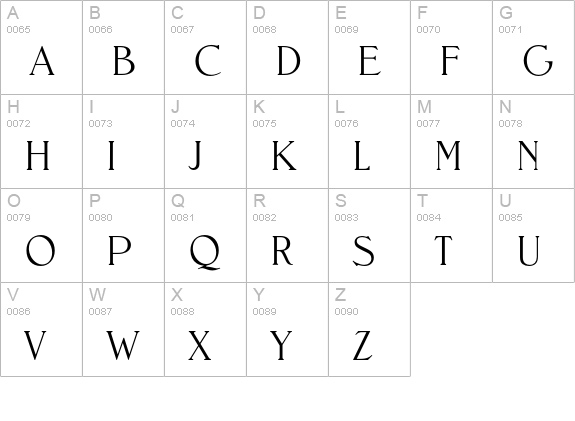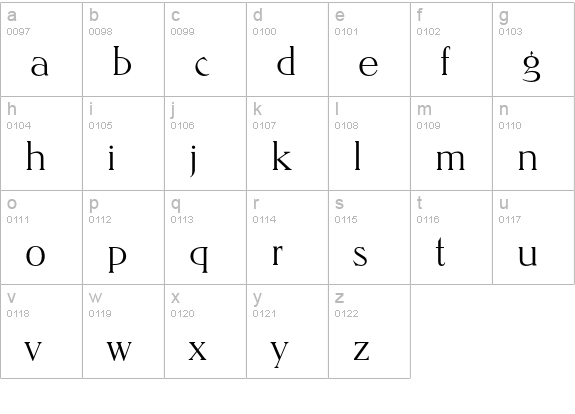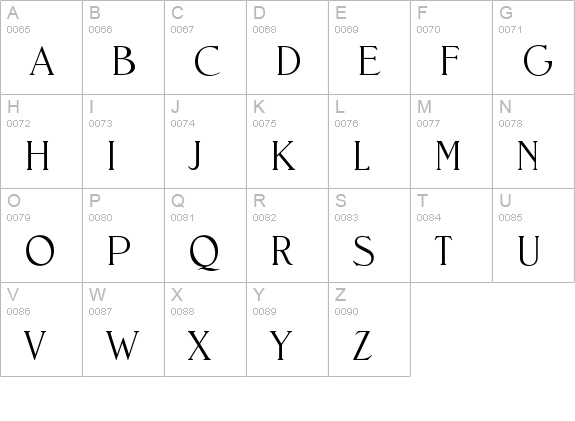
Nevada-Xlight font is a sleek and modern typeface designed with elegance and sophistication in mind. With its clean lines and minimalist aesthetic, this font is perfect for projects that require a touch of contemporary style. The Nevada-Xlight font exudes a sense of luxury and professionalism, making it ideal for a wide range of design applications. The best part? Nevada-Xlight font is completely free to download at FontsMarket.com. This means you can easily add this stylish font to your collection without breaking the bank. Whether you're working on a branding project, creating marketing materials, or designing a website, Nevada-Xlight font will elevate your work to the next level with its refined and polished look. Don't miss out on the opportunity to enhance your designs with the Nevada-Xlight font. Download it for free today at FontsMarket.com and see how this versatile typeface can bring your projects to life.